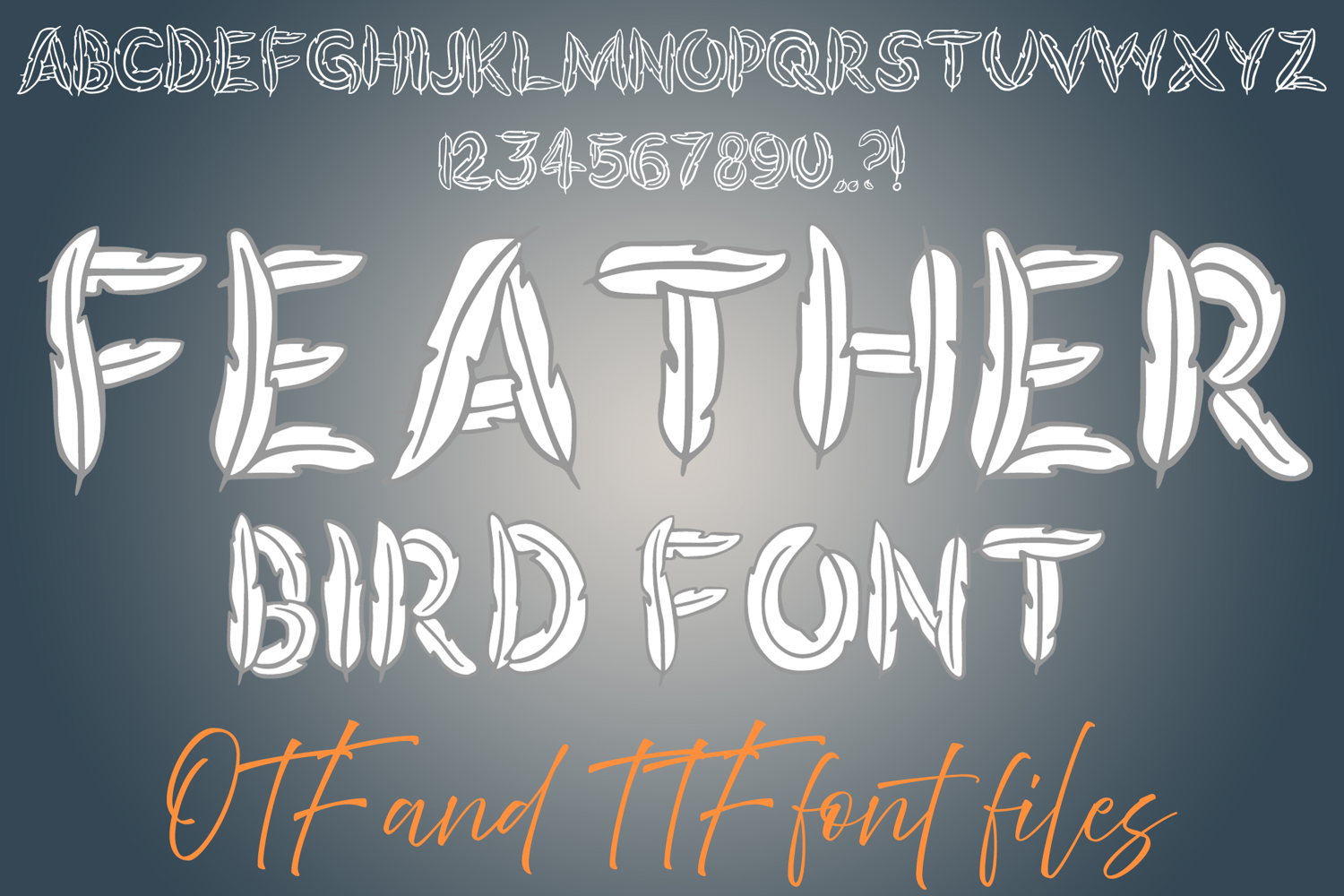
Feather Bird Alphabet Lettering ABC Text Font Wings Typeface OTF Illustration
A cartoon style font where you can create your own words and colour them to your vision!